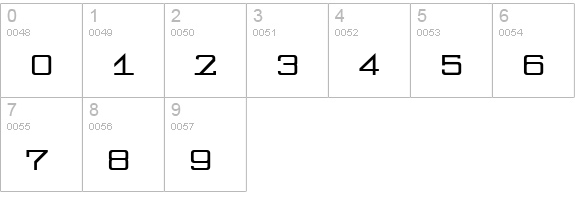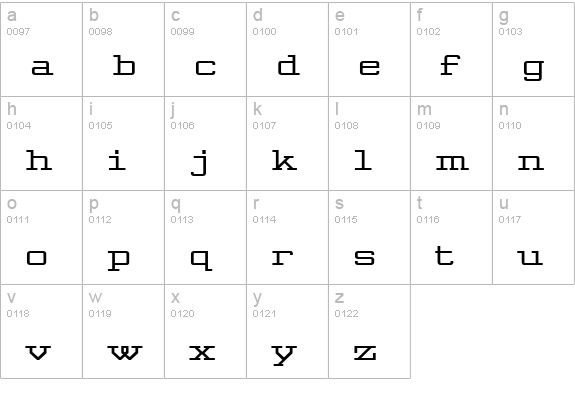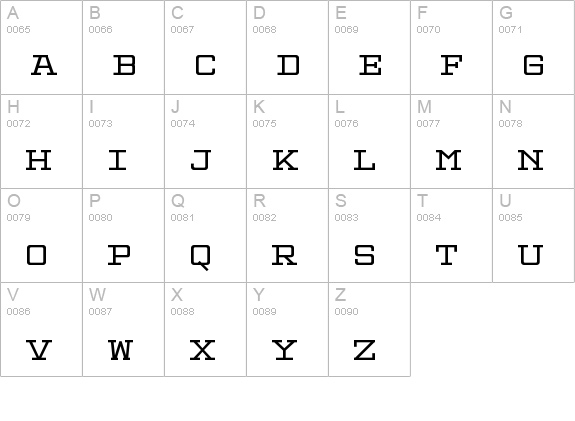
Valgal Bold Font Details
Valgal Bold is a strong, high-contrast variant in the Valgal typeface family \xE2\x80\x94 well suited to headlines, attention-grabbing titles, and strong calls-to-action.
Valgal Bold is a striking and dynamic font that exudes confidence and power. With its bold and commanding presence, this font is perfect for making a strong impression in any design project. The unique and strong letterforms of Valgal Bold demand attention and add a touch of sophistication to any text. What sets Valgal Bold apart is that it is not only visually appealing, but it is also available for free! Yes, you read that right - this incredible font can be freely downloaded at FontsMarket.com. Whether you're a designer, a creative professional, or just someone looking to add a touch of elegance to their personal projects, Valgal Bold is the ideal choice. This font is a true gem that combines modern aesthetics with timeless appeal. Its clean lines and bold strokes make it easily readable even at smaller sizes, ensuring that your message is delivered with clarity and impact. Valgal Bold is versatile and can be used in a variety of design contexts, including logos, headlines, posters, and more. The beauty of Valgal Bold lies not only in its visual appeal but also in its versatility and accessibility. The fact that it is freely available to download at FontsMarket.com means that you can unleash your creativity without any constraints. Whether you're a professional designer or a hobbyist, Valgal Bold is a valuable addition to your font library. So why wait? Take advantage of this incredible opportunity to enhance your designs with Valgal Bold. Download it for free at FontsMarket.com and unlock a world of possibilities. Grab this font now and let it elevate your projects to new heights of style and impact.